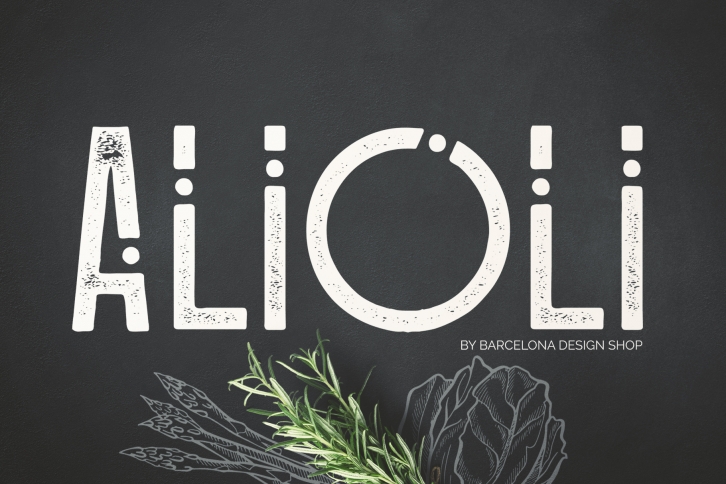
Alioli Texture is a trendy and unique font with an authentic style. It was designed by Barcelona Design Shop and it's a great choice for creative people who need such a font. It was released on December 4, 2017 and the file size is 19.18 MB. Alioli Texture will add an organic vibe to any design idea!